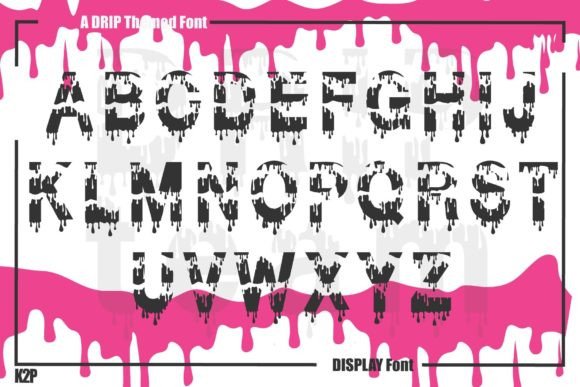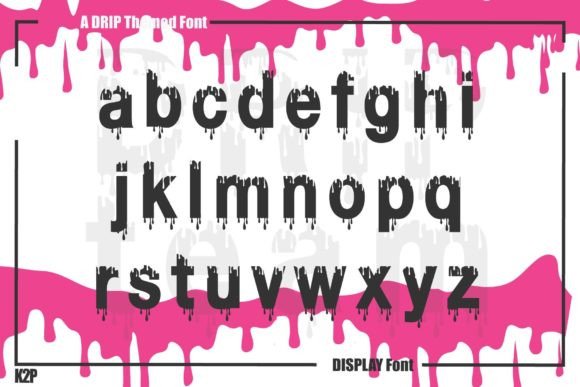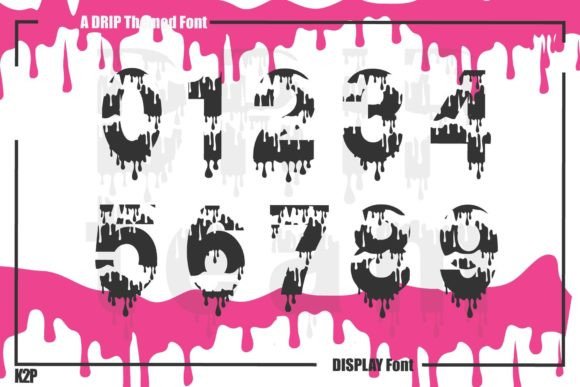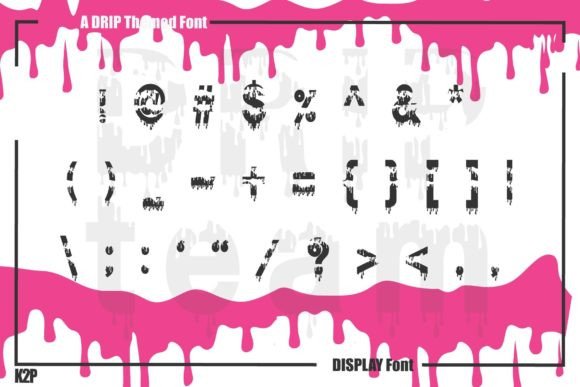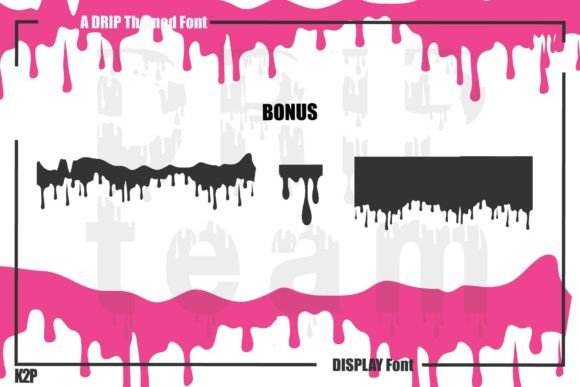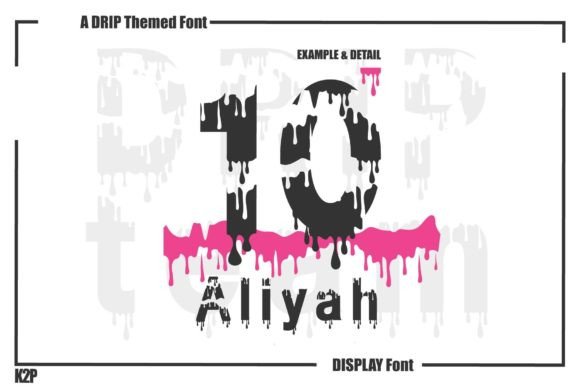
Drip Team Font: The Ultimate Guide to this Playful Display Font
Are you a designer or a crafter looking for a unique and modern font to elevate your brand’s visual identity? Look no further than the Drip Team Font! This playful display font is making waves in the design community with its melting effect, reminiscent of dripping ink. In this comprehensive guide, we’ll dive into the world of Drip Team Font, exploring its features, uses, and benefits for modern branding.
What is Drip Team Font?
Drip Team Font is a modern display font that boasts a distinctive melting effect, giving it a fresh and edgy look. The font’s design is inspired by the fluid motion of dripping ink, making it perfect for brands that want to convey a sense of creativity and playfulness. With its unique aesthetic, Drip Team Font is ideal for headlines, titles, and short phrases, adding a touch of whimsy to any design project.
Key Features of Drip Team Font
- Playful and modern design: Drip Team Font’s melting effect gives it a youthful and trendy vibe, making it perfect for brands that cater to a younger audience.
- Melting effect: The font’s dripping ink effect adds a dynamic and creative twist to any design project.
- Display font: Drip Team Font is designed specifically for display purposes, making it ideal for headlines, titles, and short phrases.
- Easy to read: Despite its unique design, Drip Team Font remains easy to read, ensuring that your message gets across effectively.
Who Can Benefit from Drip Team Font?
Drip Team Font is an excellent choice for designers and crafters working on branding projects for:
- Food and snack brands: The font’s playful and modern design makes it perfect for food and snack brands looking to add a touch of whimsy to their packaging or advertising.
- Social media graphics: Drip Team Font’s unique aesthetic makes it ideal for social media graphics, adding a creative twist to any post or story.
- Branding and advertising: The font’s melting effect makes it perfect for branding and advertising projects that require a bold and eye-catching design.
Tips for Using Drip Team Font
To get the most out of Drip Team Font, follow these tips:
- Use it sparingly: Drip Team Font’s unique design can be overwhelming if overused. Use it sparingly to add emphasis to key messages or headings.
- Pair it with a simple font: Pair Drip Team Font with a simple, easy-to-read font to create visual contrast and ensure your message gets across effectively.
- Experiment with colors: The melting effect of Drip Team Font looks stunning with bold, bright colors. Experiment with different color combinations to create a unique look.
Drip Team Font is a game-changer for designers and crafters looking to add a touch of whimsy to their branding projects. With its playful and modern design, melting effect, and ease of use, this font is perfect for food and snack brands, social media graphics, and branding and advertising projects. By following the tips outlined in this guide, you can unlock the full potential of Drip Team Font and take your designs to the next level.
Get Ready to Make a Statement with Drip Team Font!